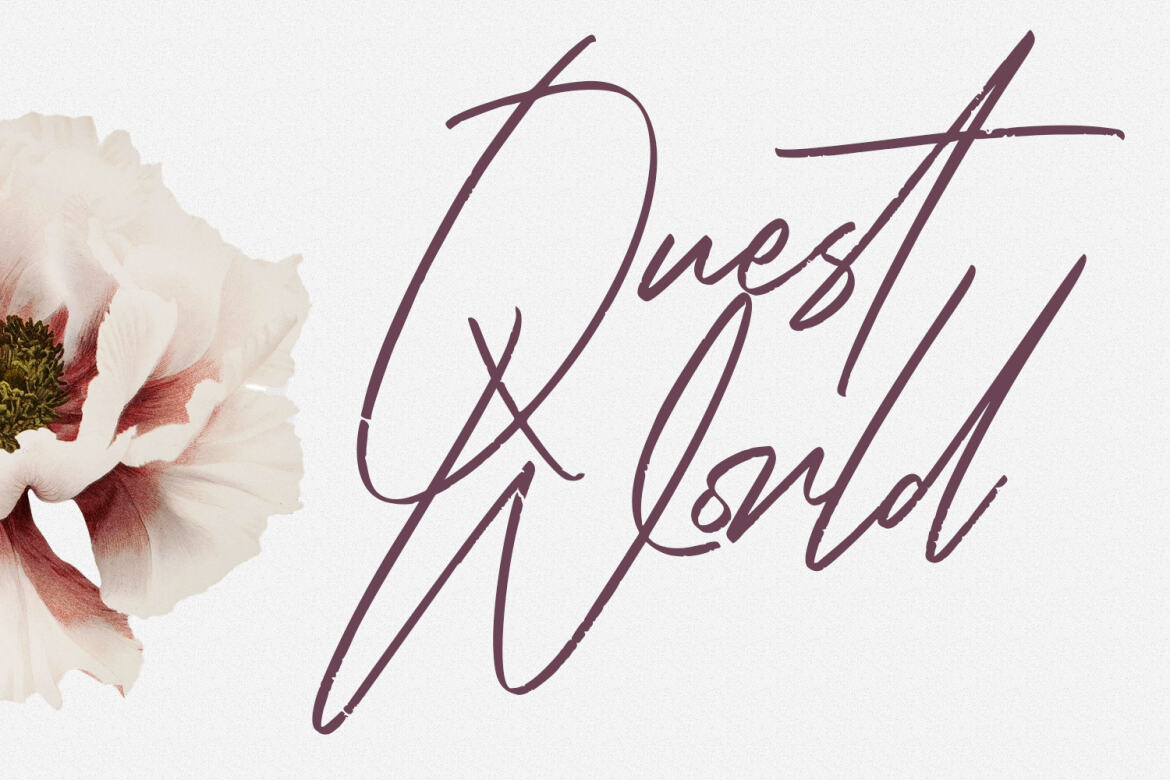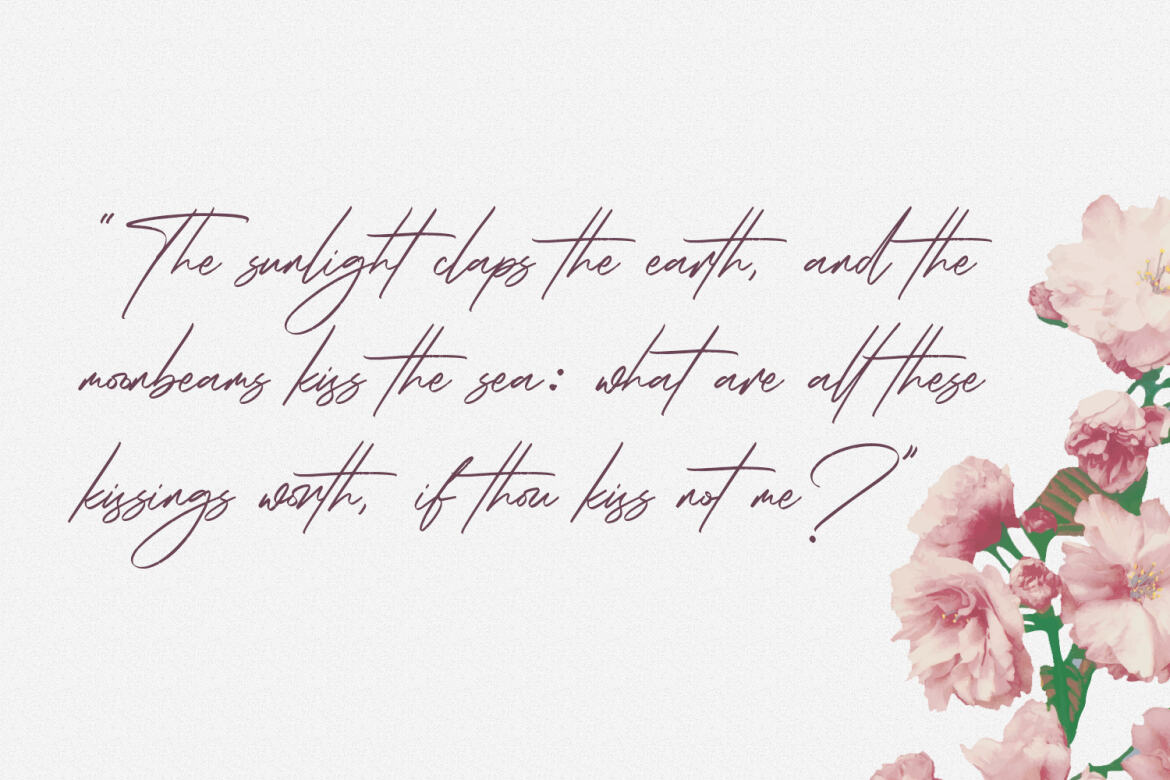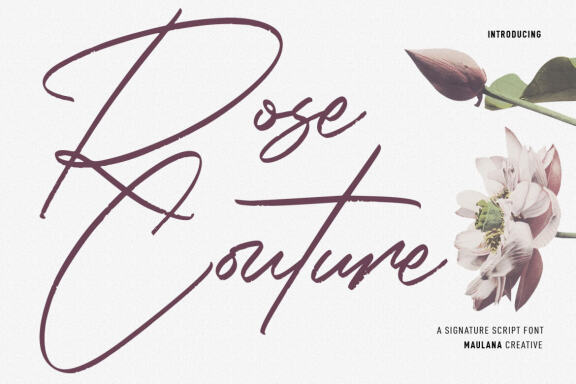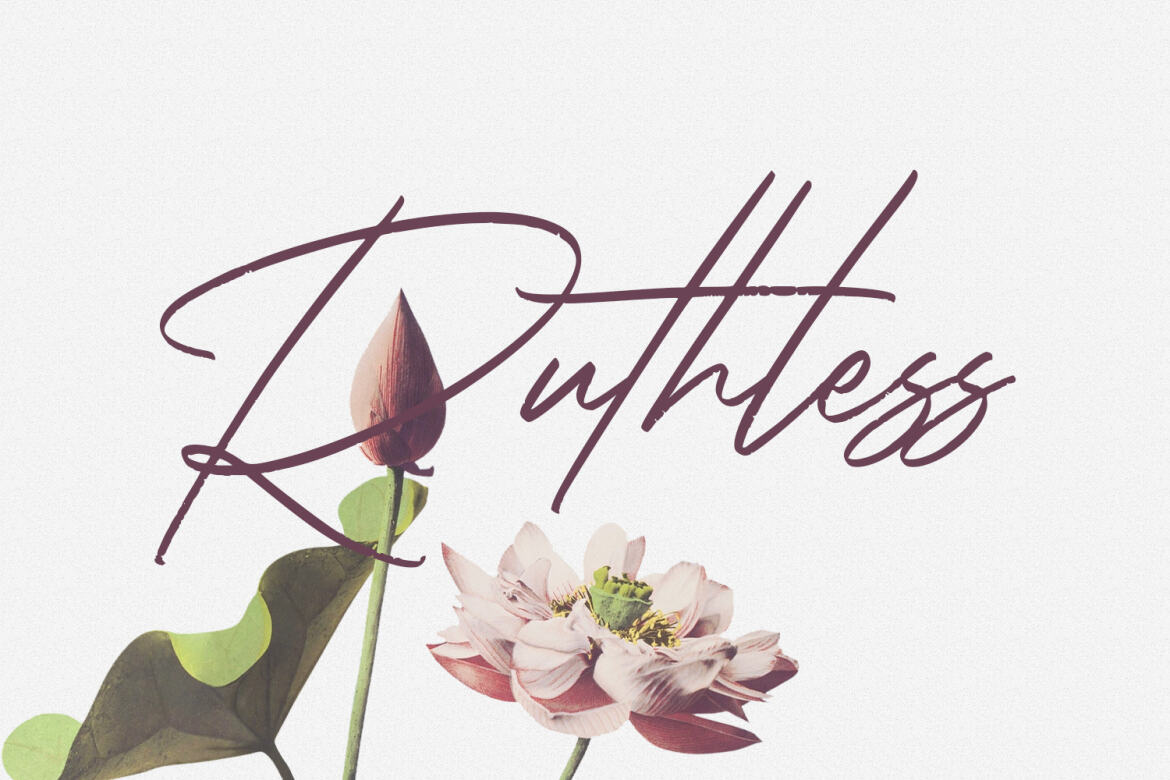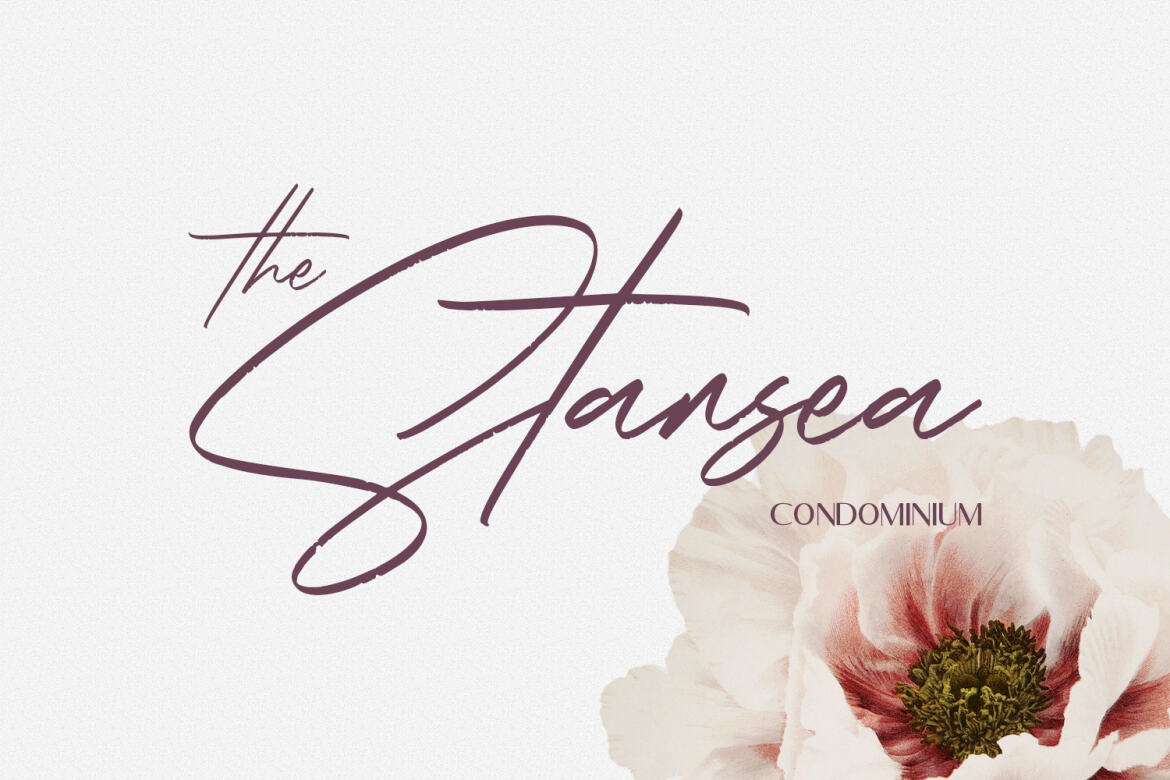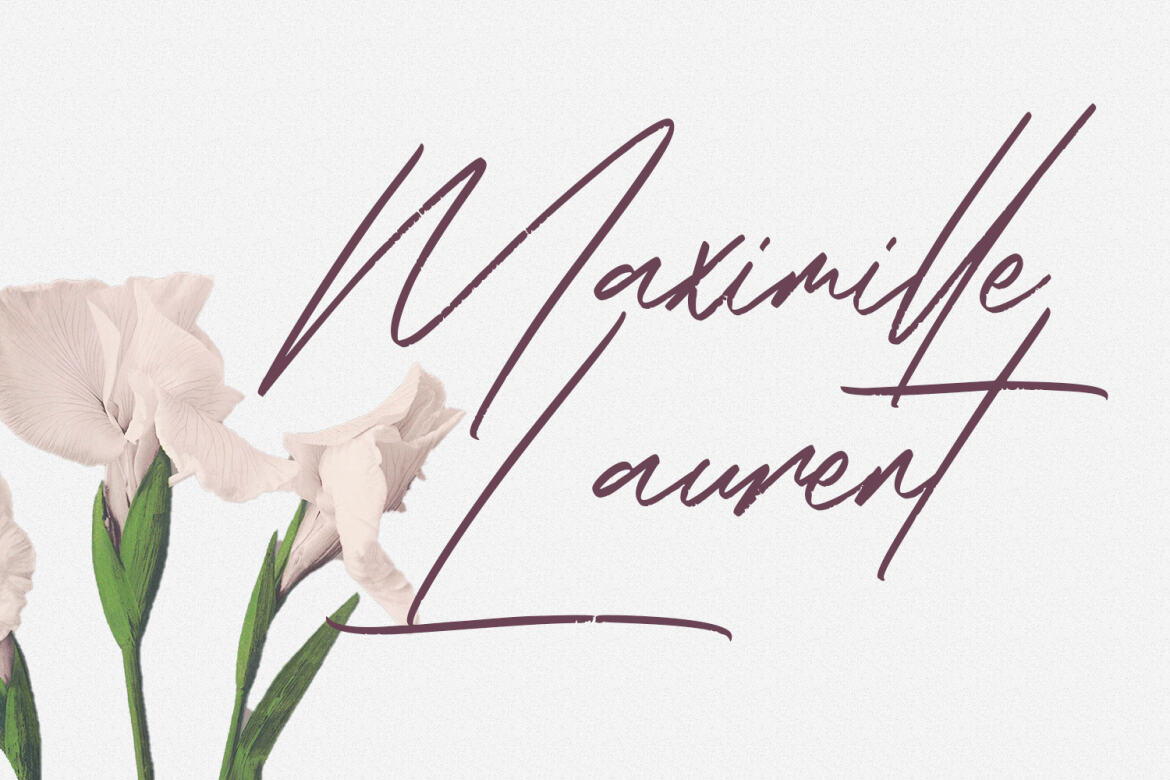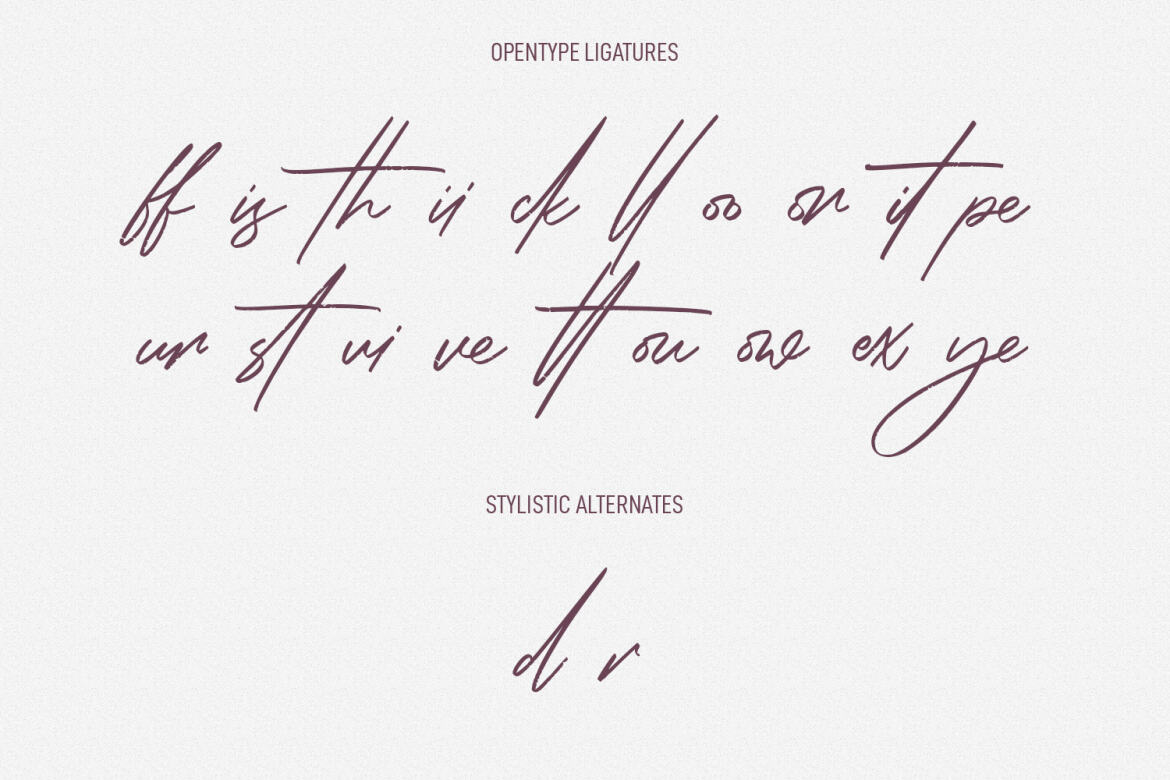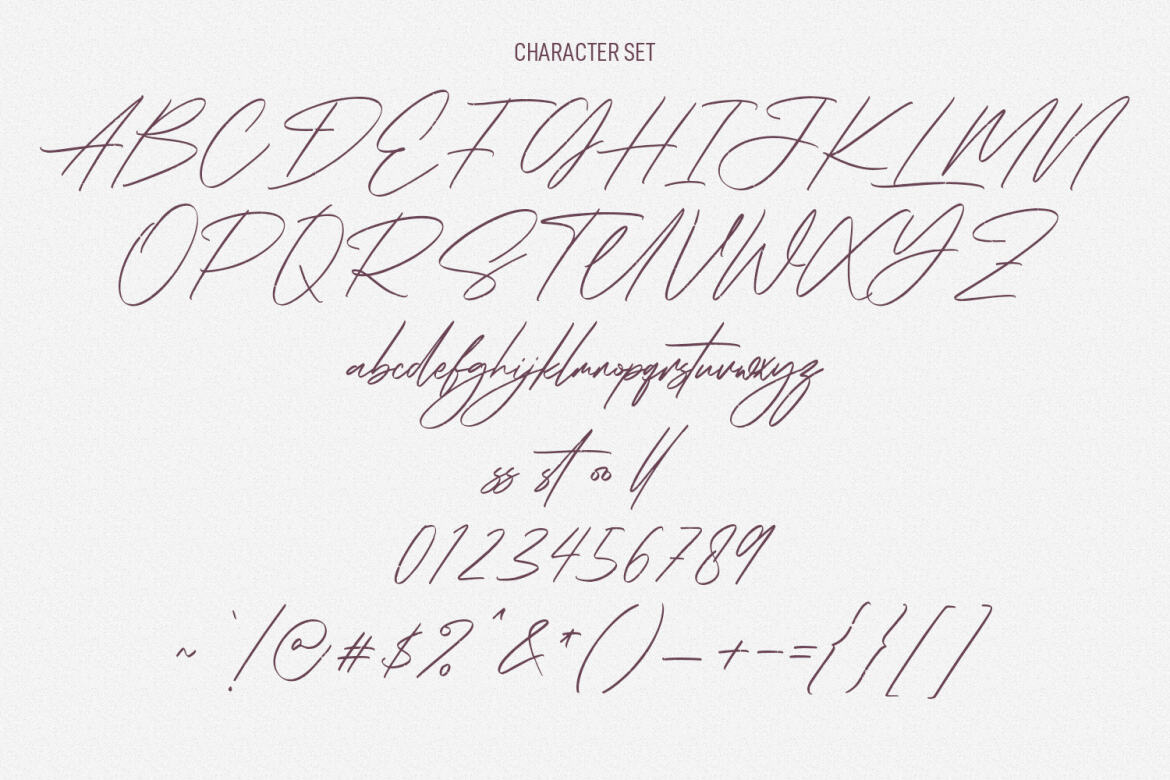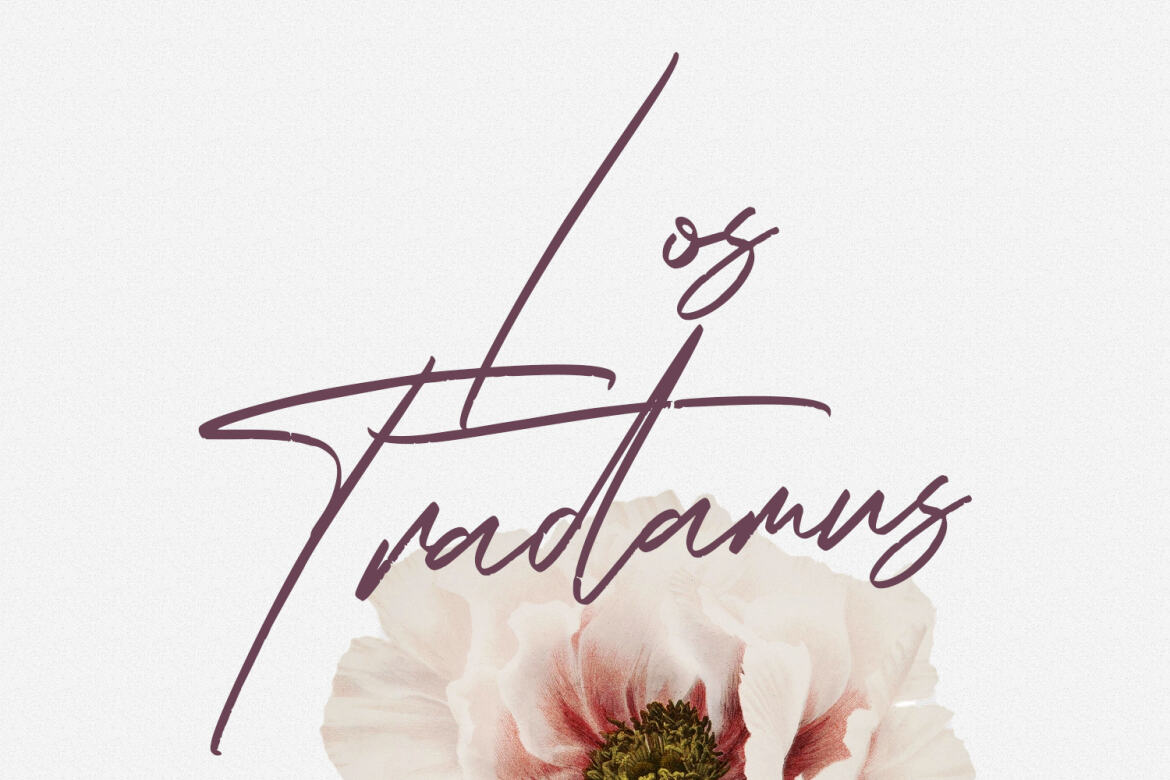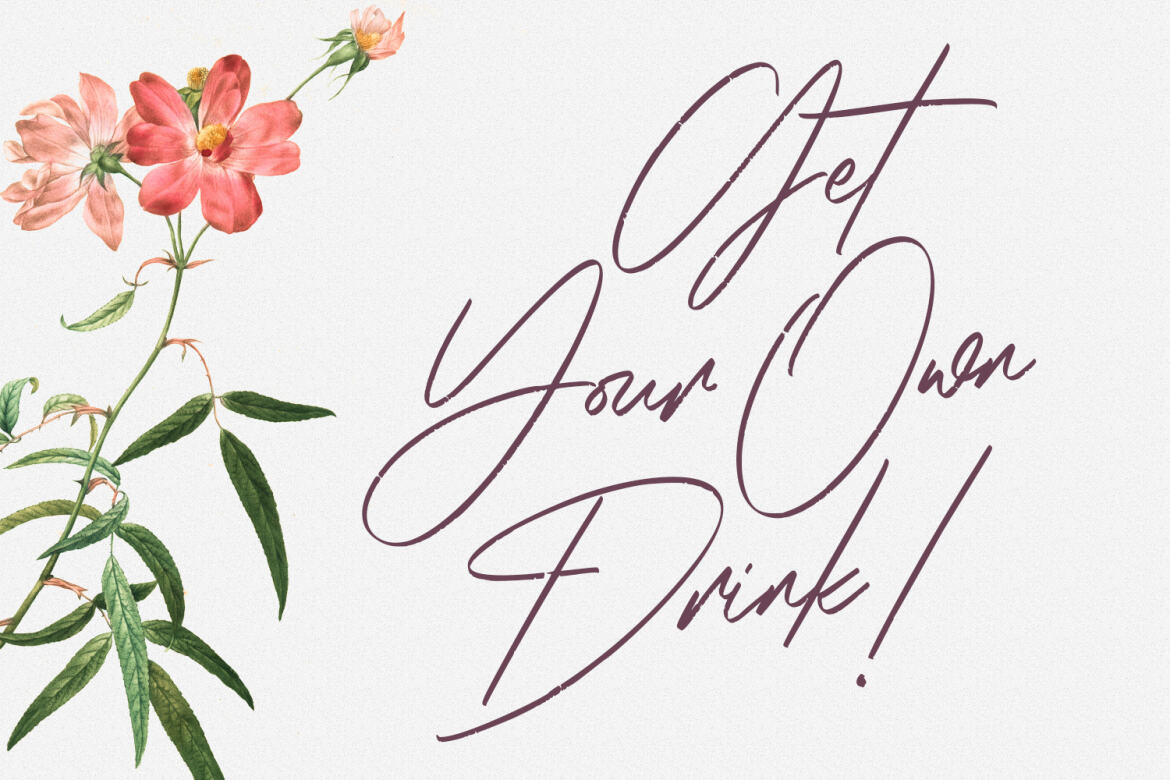
Rose Couture preview
Rose Couture
Rose Couture is a slanted modern expressive signature script font. With rough brush contrast stroke, fun character with a bit of ligatures and alternates. To give you an extra creative work. Rose Couture font support multilingual more than 100+ language. This font is good for logo design, Social media, Movie Titles, Books Titles, a short text even a long text letter and good for your secondary text font with sans or serif. Make a stunning work with Rose Couture font.